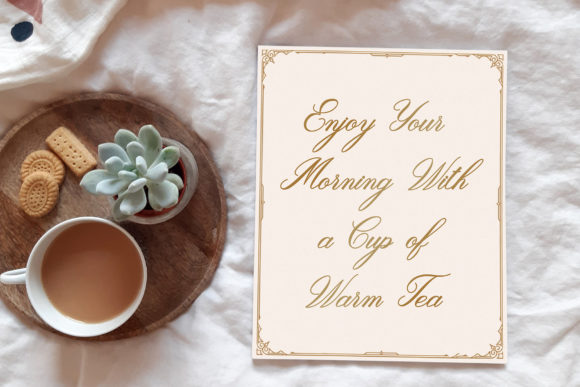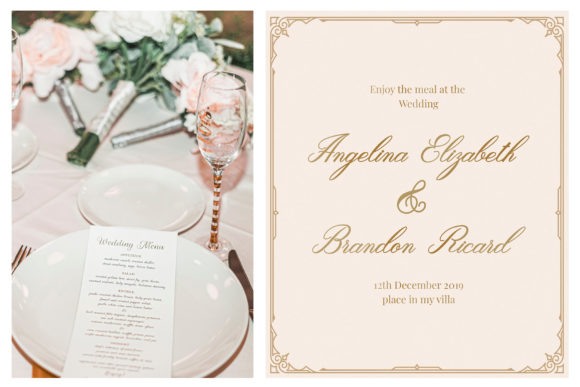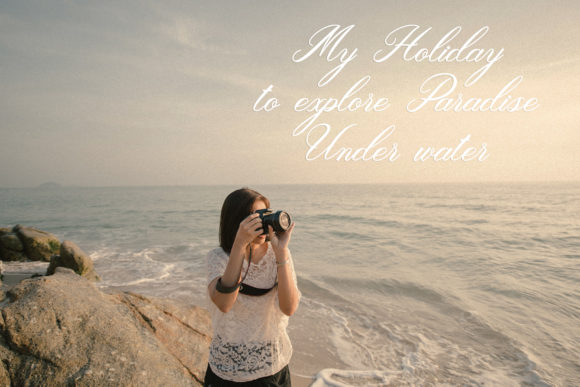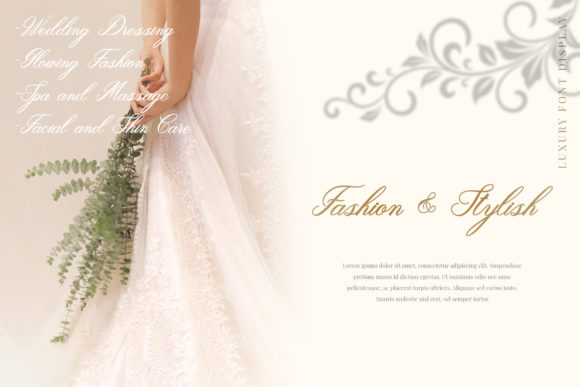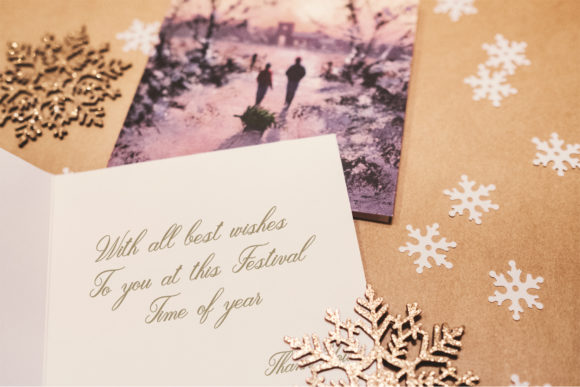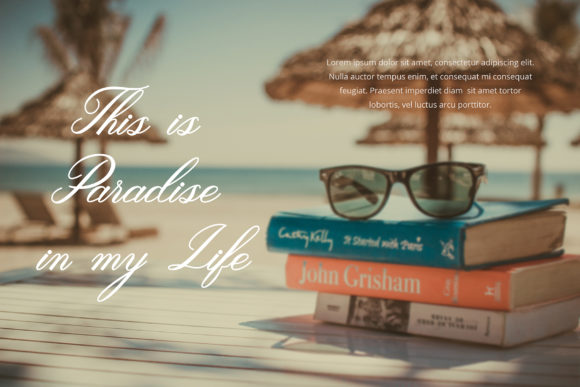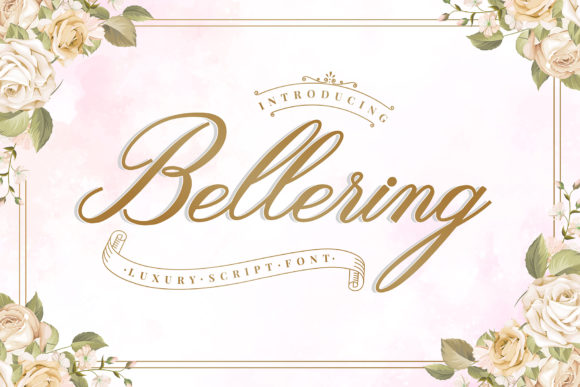
Bellering Font: Elevate Your Design with Classic Elegance and Unique Style
In the world of typography, few fonts manage to strike a balance between classic inspiration and unique flair. Bellering Font is one such exceptional typeface that brings a touch of sophistication and elegance to any design project. Inspired by the timeless beauty of classic typography, Bellering infuses its own distinctive style, making it a versatile and captivating choice for designers and crafters alike.
The Essence of Bellering Font
Bellering is a script font that exudes a sense of luxury and refinement. Its design is rooted in traditional typography, yet it boasts a contemporary twist that sets it apart from more conventional typefaces. This unique blend of old and new makes Bellering an excellent choice for a wide range of design applications, from elegant headlines to detailed text blocks.
Key Features of Bellering Font
- Classic Inspiration: Bellering draws inspiration from the classic typography of the past, offering a sense of timelessness and sophistication.
- Unique Style: What sets Bellering apart is its unique style, which adds a fresh and modern touch to its classic roots.
- Versatility: This fantastic script font is best suited for headlines of all sizes, as well as for blocks of text that require both maximum and minimum variations.
- Elegance and Readability: Bellering combines elegance with readability, making it an excellent choice for both display text and longer passages.
Applications of Bellering Font
Bellering’s versatility makes it suitable for a variety of design projects. Here are some of the key areas where this font truly shines:
- Headlines and Titles: The font’s elegant and commanding presence makes it perfect for headlines and titles, where grabbing the reader’s attention is paramount.
- Branding and Logos: Bellering can add a touch of sophistication and luxury to brand identities and logos, helping businesses stand out.
- Invitations and Announcements: For formal invitations, announcements, or any event that requires a touch of class, Bellering is an excellent choice.
- Packaging and Advertising: The font’s unique style and classic elegance make it suitable for product packaging and advertising materials, where differentiation is key.
- Digital and Print Media: Whether it’s for a website, magazine, book, or any other form of media, Bellering can enhance the visual appeal and readability of text.
Tips for Using Bellering Font Effectively
To make the most of Bellering Font in your design projects, consider the following tips:
- Mix and Match: Combine Bellering with other fonts to create visual interest. Its classic elegance pairs well with modern sans-serifs or decorative fonts.
- Play with Sizes: Take advantage of Bellering’s versatility by using it in various sizes, from large headlines to smaller body text.
- Adjust Line Spacing: For blocks of text, ensure adequate line spacing to enhance readability and give your text a clean, airy feel.
- Experiment with Colors: While Bellering looks stunning in black or dark colors, don’t be afraid to experiment with different colors to match your brand or design theme.
Bellering Font offers a unique blend of classic typography and modern style, making it a valuable addition to any designer’s toolkit. Its elegance, versatility, and readability ensure that it can elevate a wide range of projects, from luxury branding to elegant invitations. By incorporating Bellering into your designs, you can add a touch of sophistication and distinctive flair that sets your work apart.
Whether you’re a seasoned designer or a crafty DIY enthusiast, Bellering Font invites you to explore new possibilities in typography and design. With its timeless beauty and contemporary twist, Bellering is poised to make a lasting impression in the world of design.